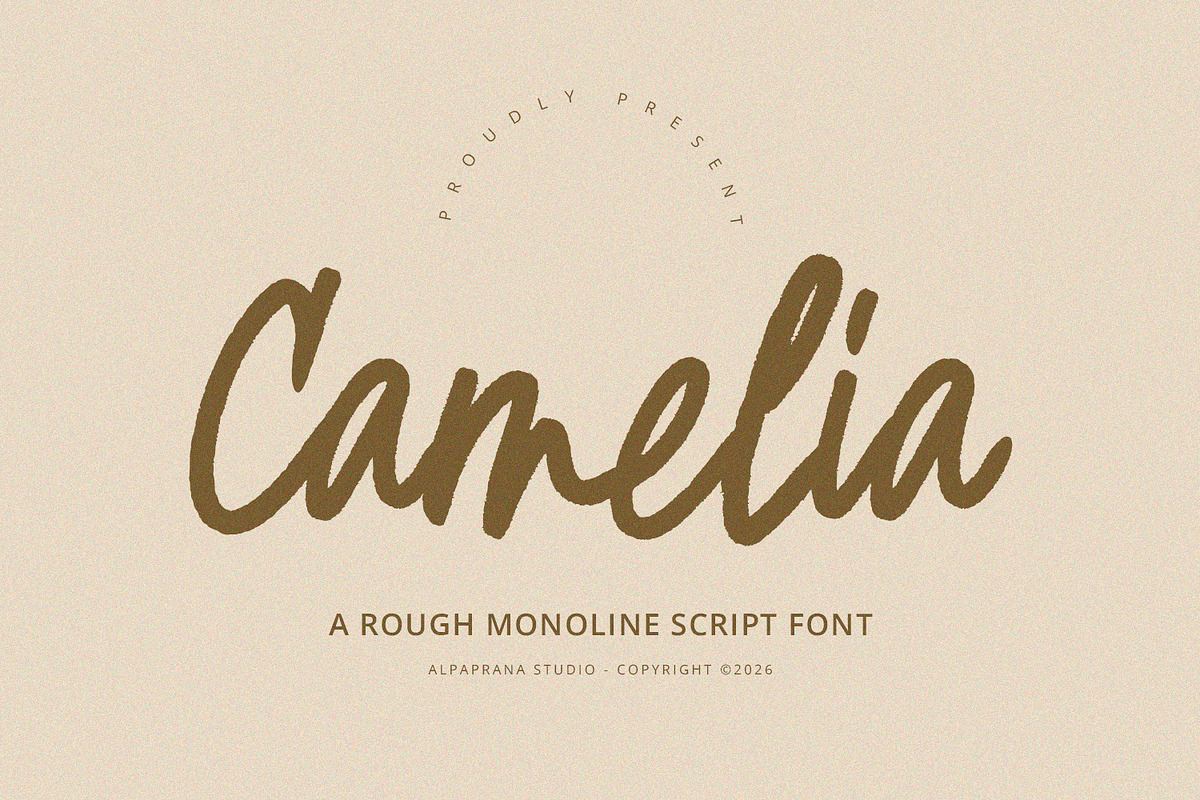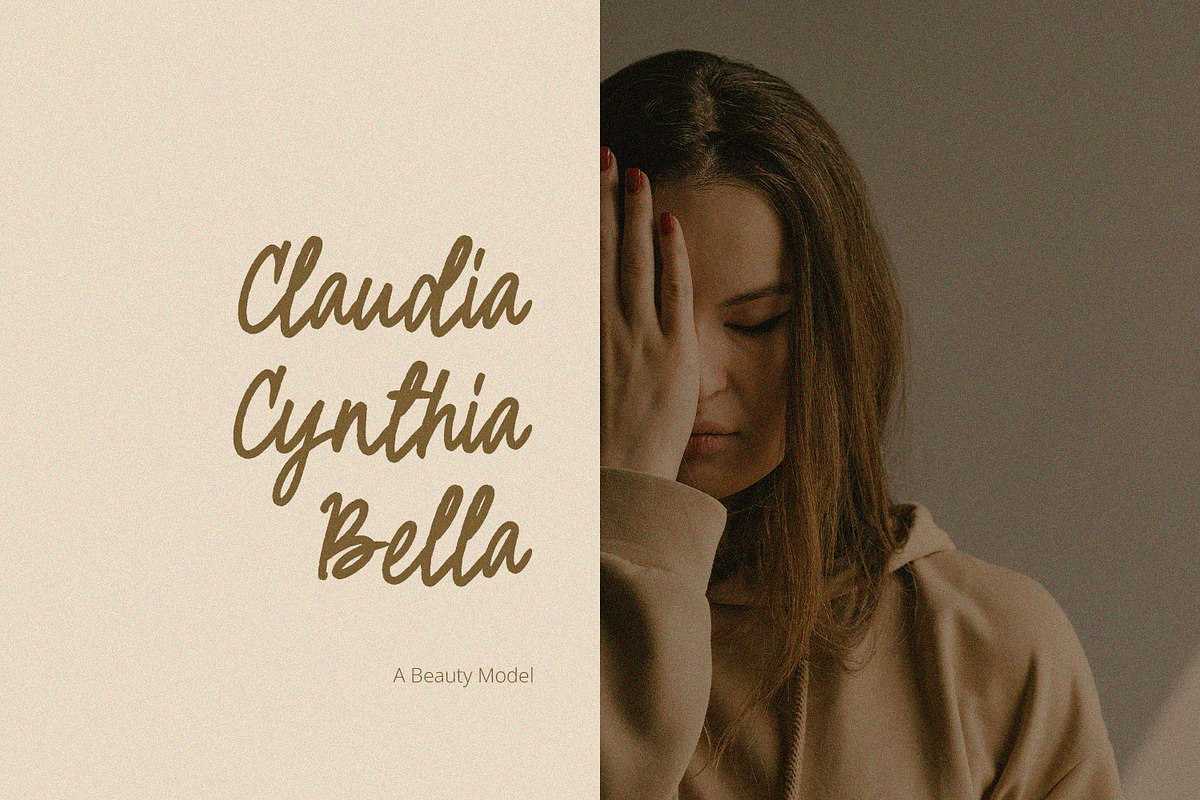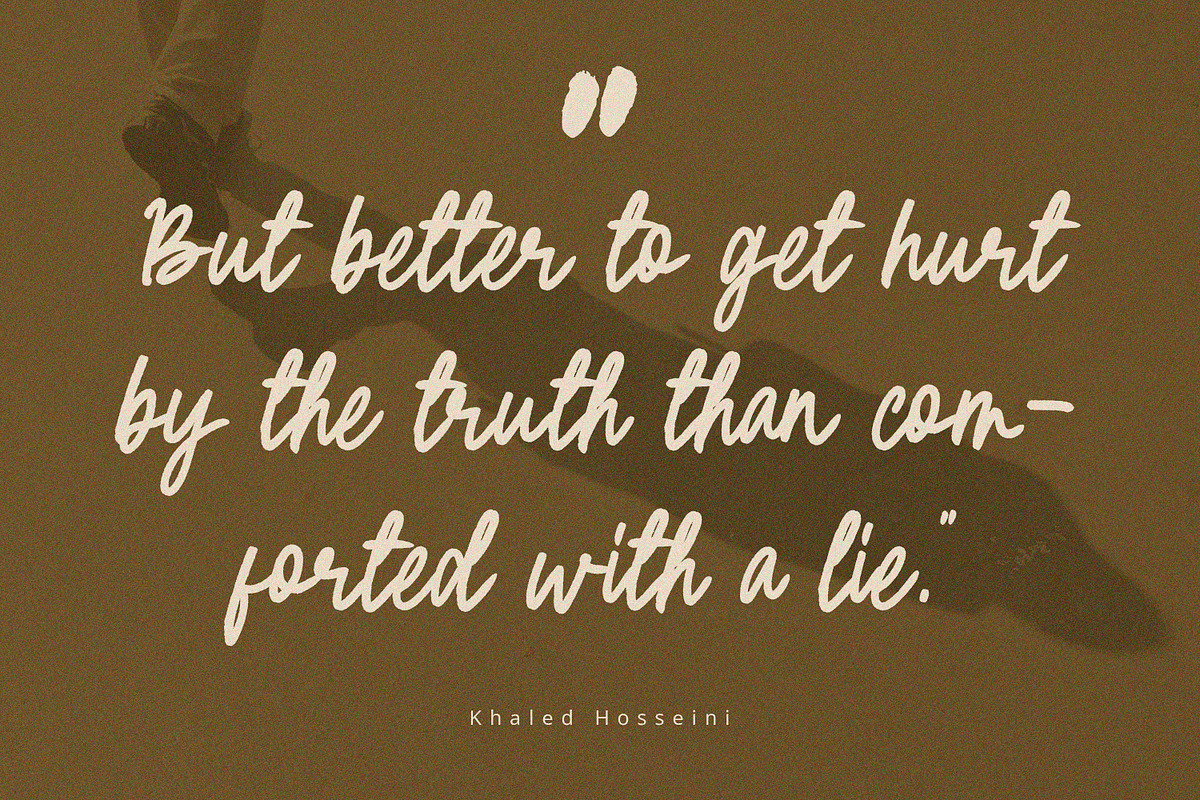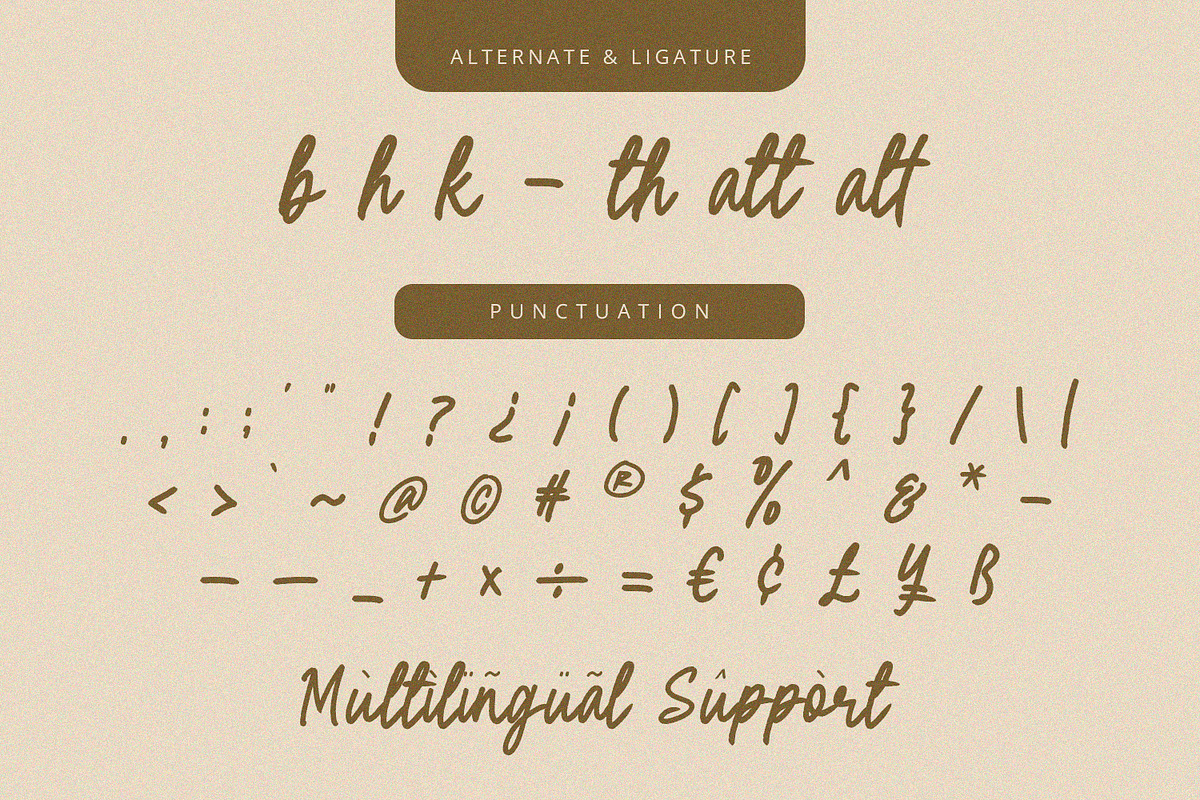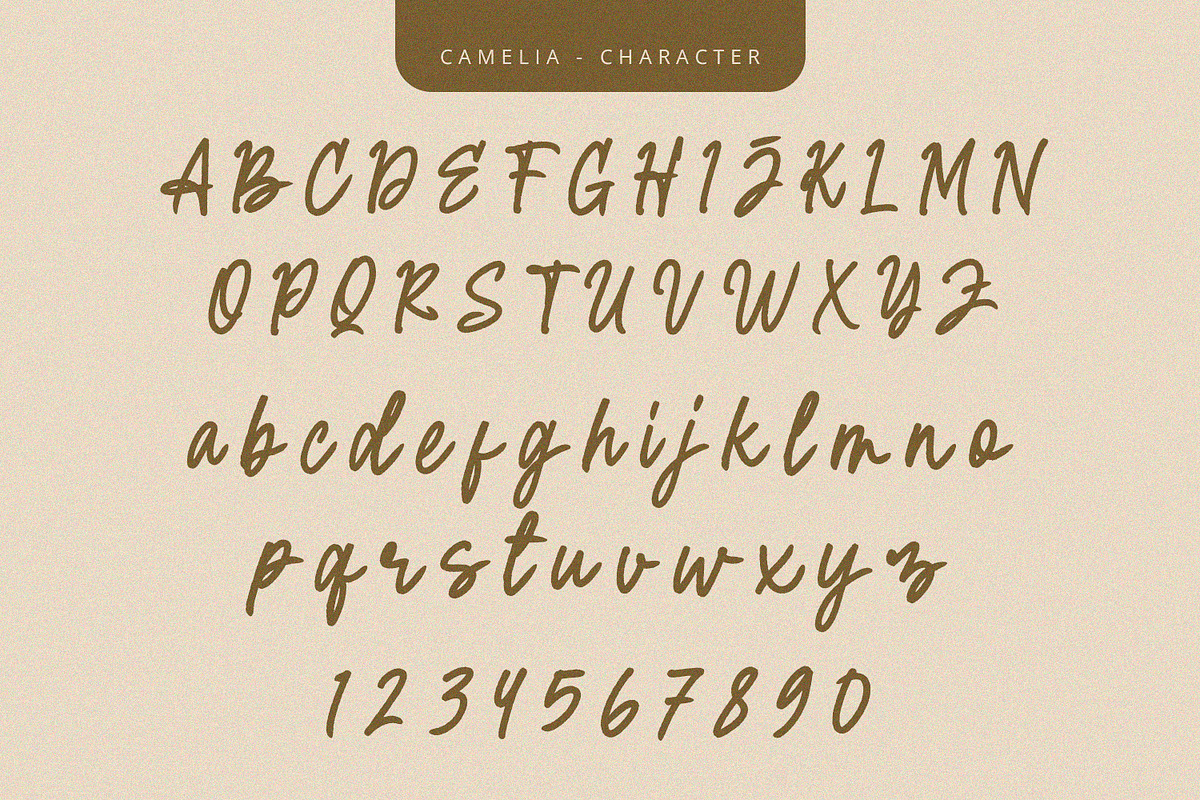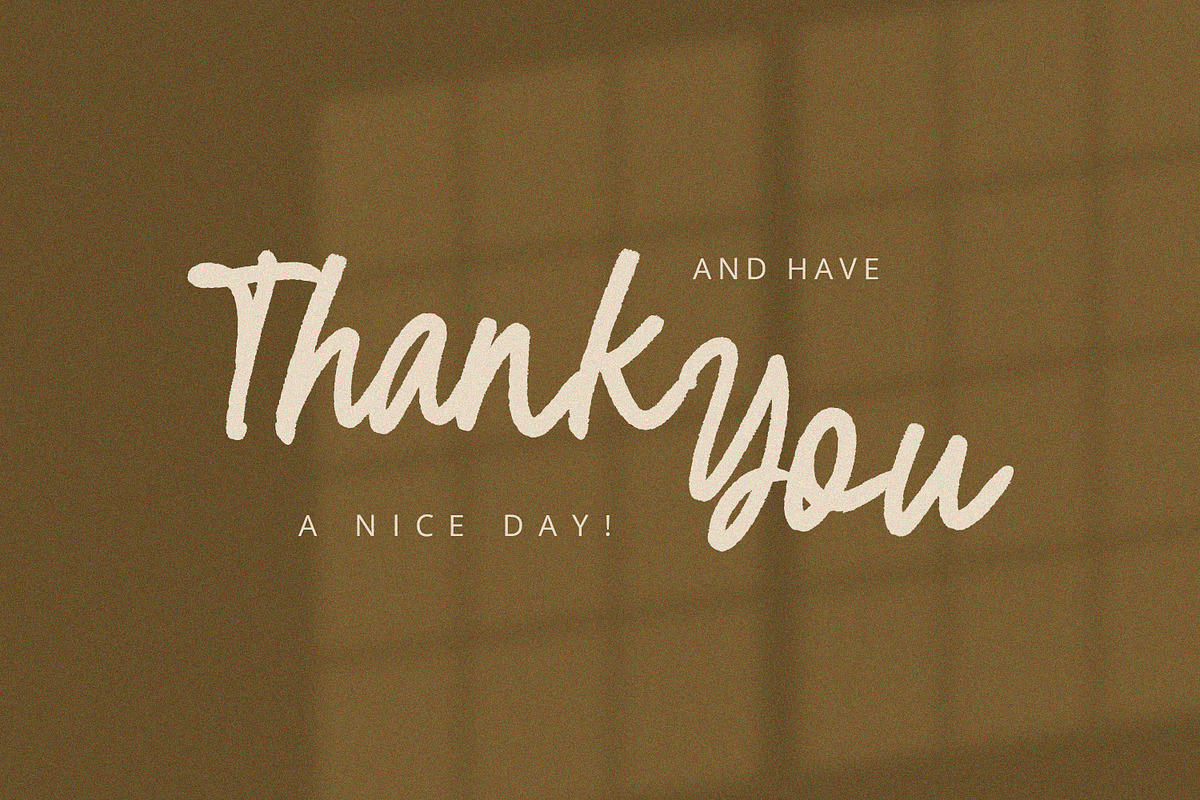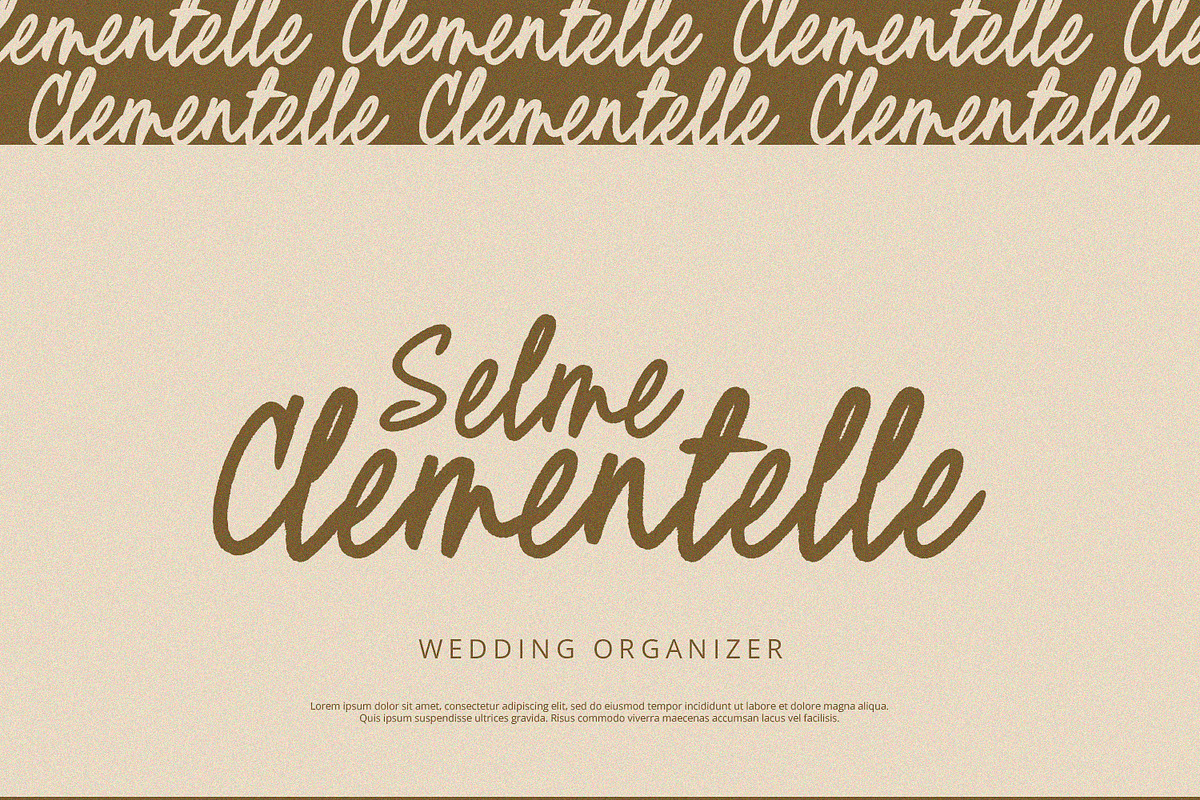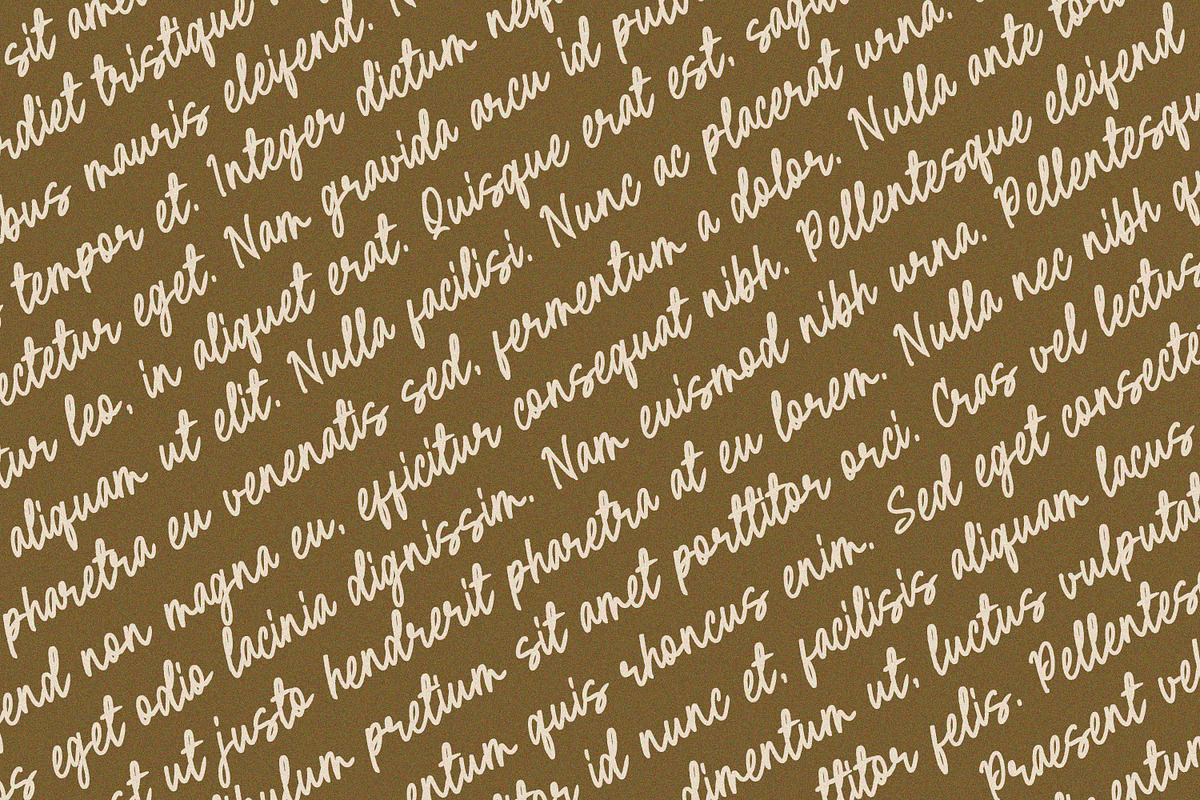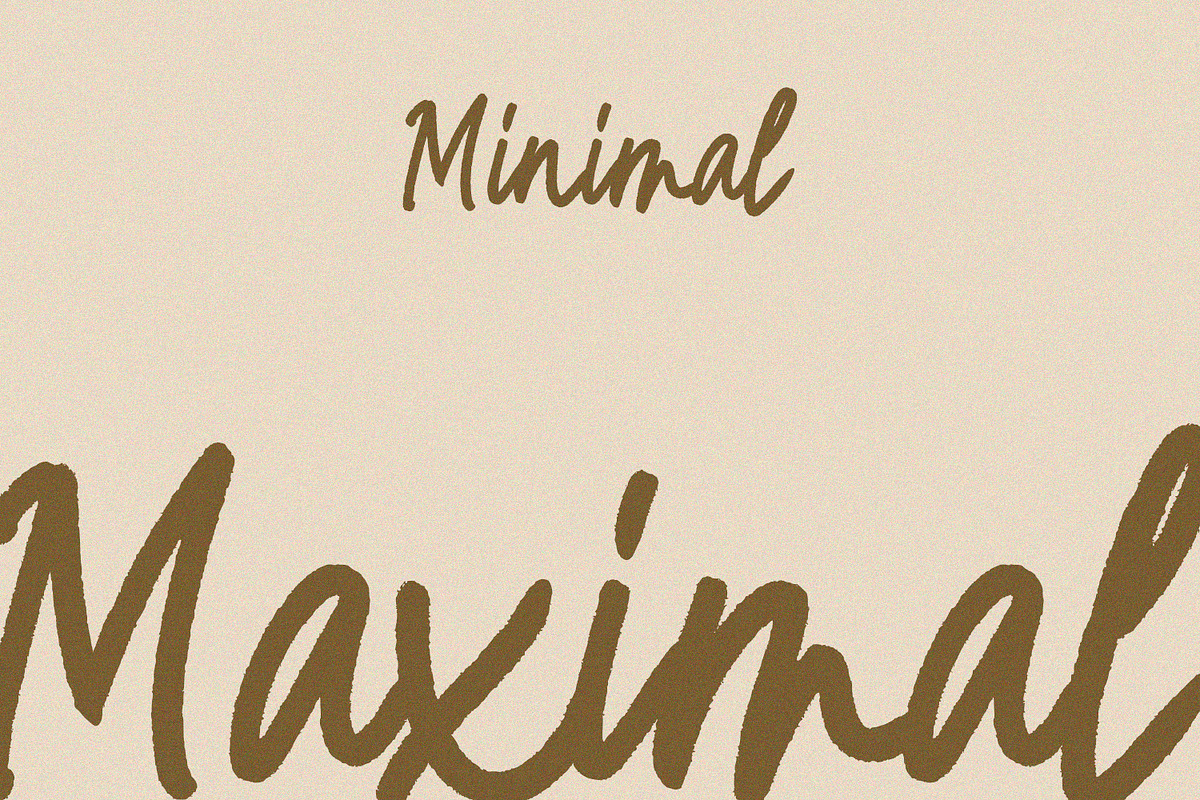
Camelia - Script Font
Camelia is a script font with unique and modern feels. It will be perfectly used for Branding, Logo Design, Lettering, Logotype, Clothing, Poster, magazine, packaging, posters, shopping bags, t-shirts, book covers, photography, special events and other design project.